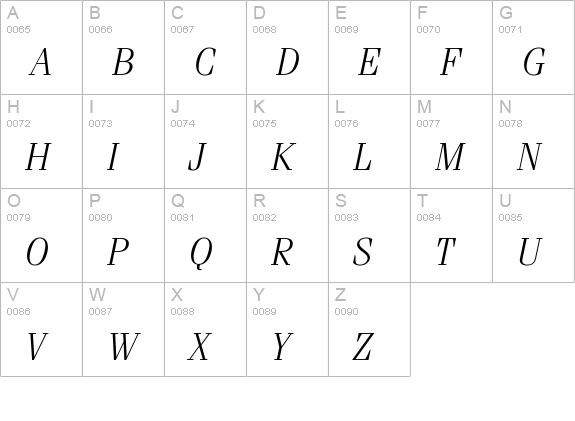
Ferrara-Osf-Light-Italic is a refined, elegant, italic variant in the Ferrara typeface family \xE2\x80\x94 well suited to elegant body text, refined sub-headings, and luxury branding.
Ferrara-Osf-Light-Italic is a sophisticated and elegant font that exudes a sense of modernity and style. Its slender and graceful letterforms make it perfect for adding a touch of sophistication to any design project. The italic style adds a sense of movement and fluidity, making it ideal for conveying a sense of elegance and refinement. This exquisite font is not only visually appealing but also highly versatile, making it suitable for a wide range of design applications, from branding to editorial design. Whether used for headlines, body text, or decorative elements, Ferrara-Osf-Light-Italic is sure to make a statement. What's even better is that this beautiful font is available for free download at FontsMarket.com, allowing designers and creatives to access this premium typeface without any cost. Don't miss out on the opportunity to enhance your projects with the timeless charm of Ferrara-Osf-Light-Italic.